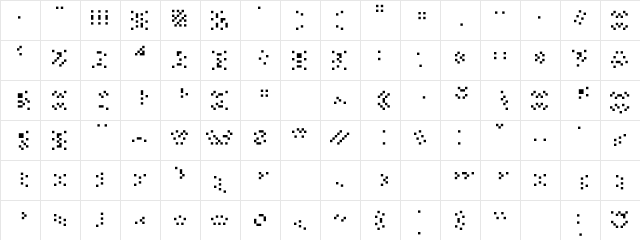
CrunchyBeefAlias Medium
Design Context for CrunchyBeefAlias Typeface
CrunchyBeefAlias is a composed and adaptable typeface that performs quietly and consistently across a wide range of design contexts.